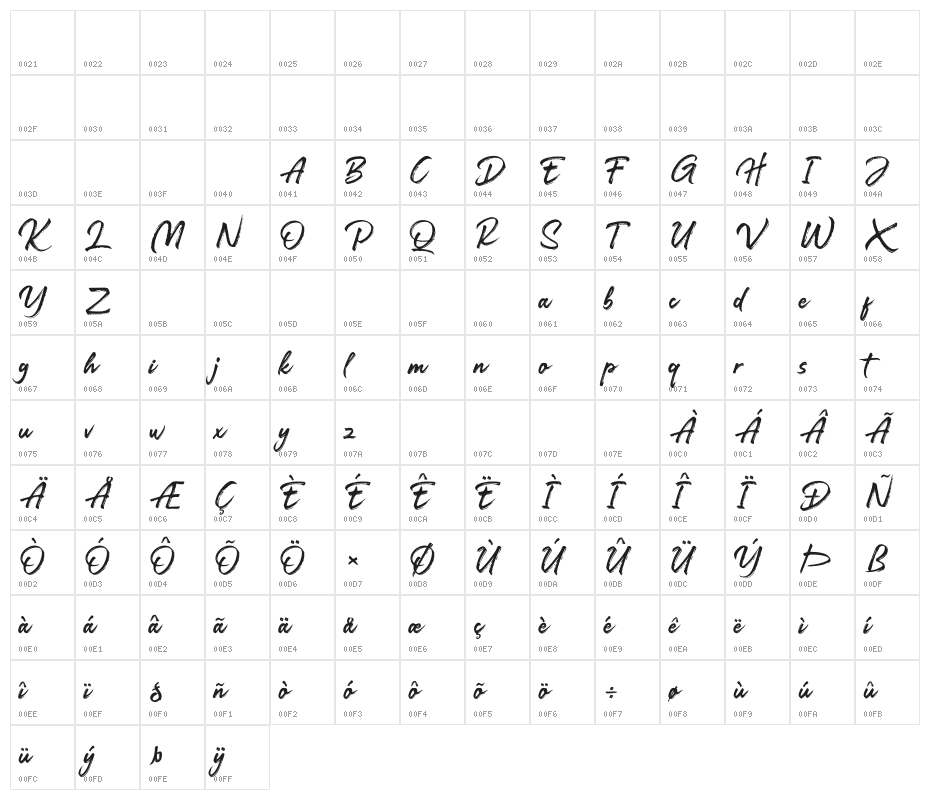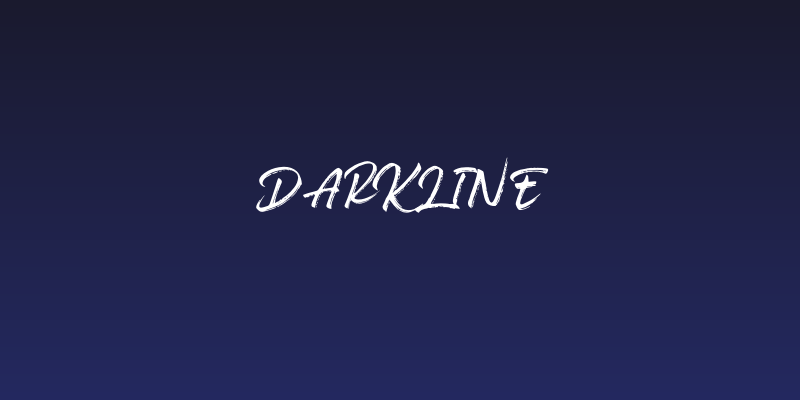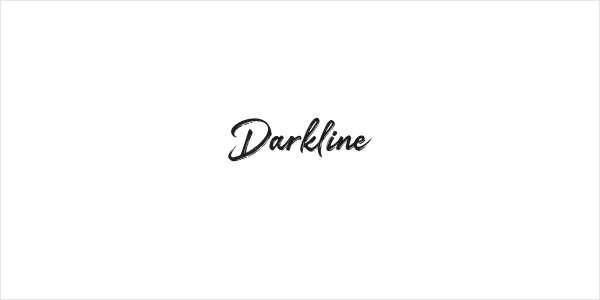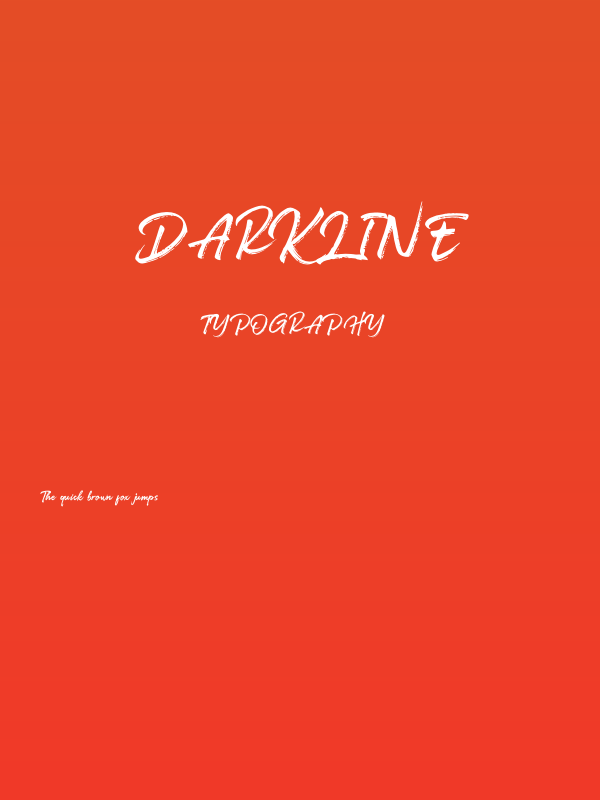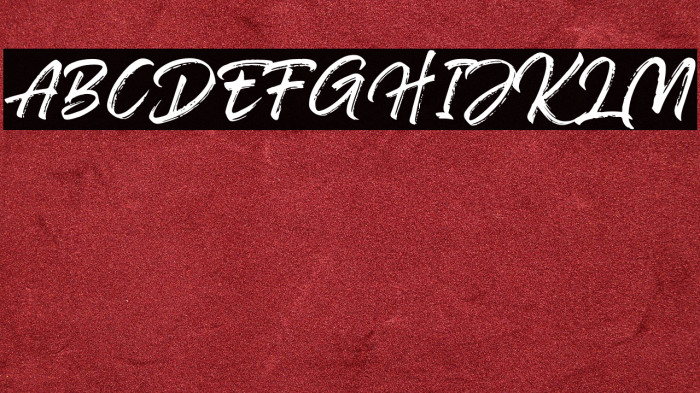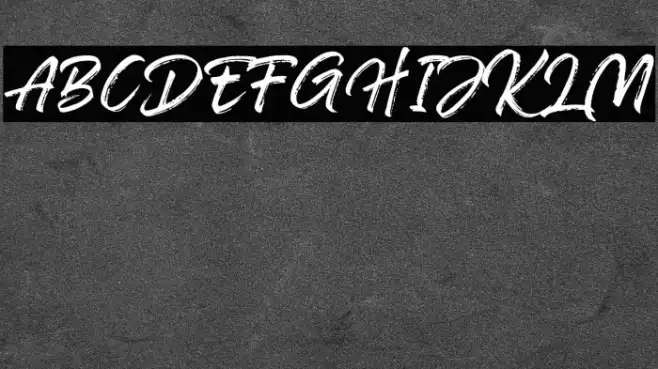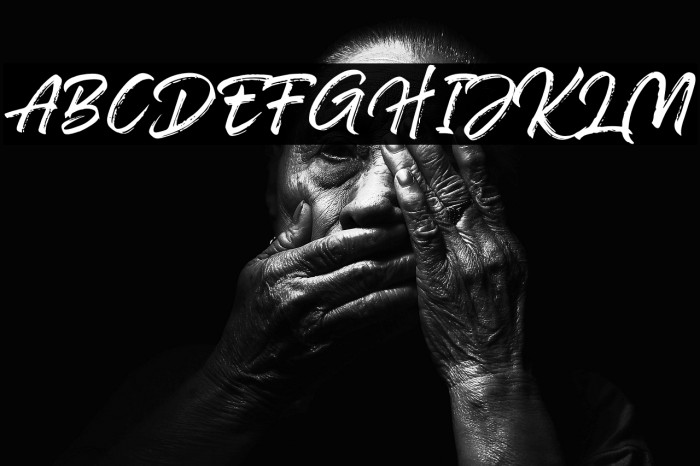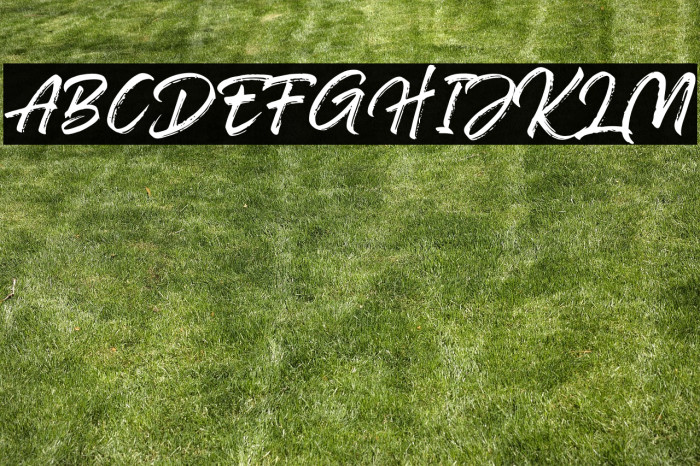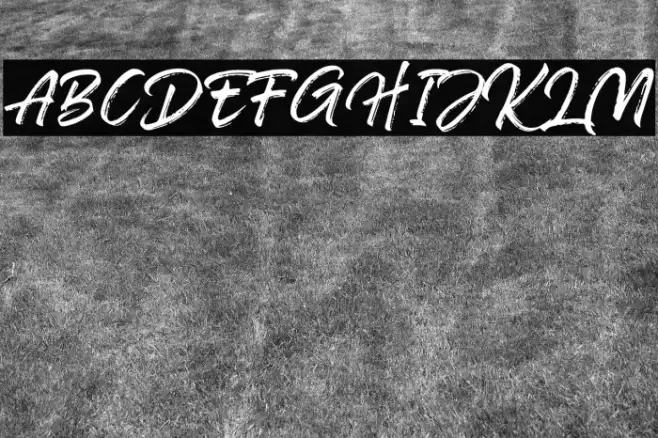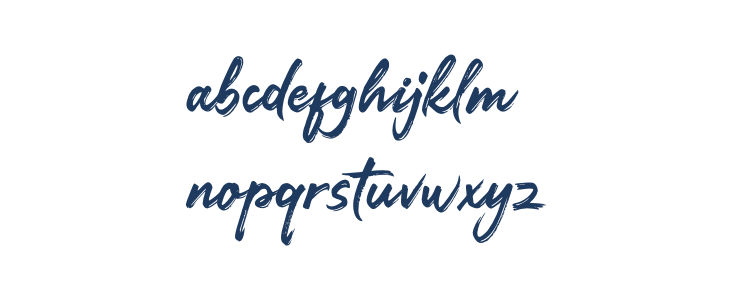
Darkline Font
Darkline Description
This font features a bold, brush-like script style with a dynamic and energetic appearance. The strokes are thick and exhibit a high contrast, giving it a lively and expressive feel. The characters are slightly slanted, adding to the sense of motion and fluidity. The uppercase letters are bold and prominent, while the lowercase letters maintain a consistent flow with elegant curves. The overall design is reminiscent of hand-painted signage, making it ideal for projects that require a personal and artistic touch.
| Proposed Projects | Ideal for branding, posters, invitations, and any project needing a personal, artistic touch. |